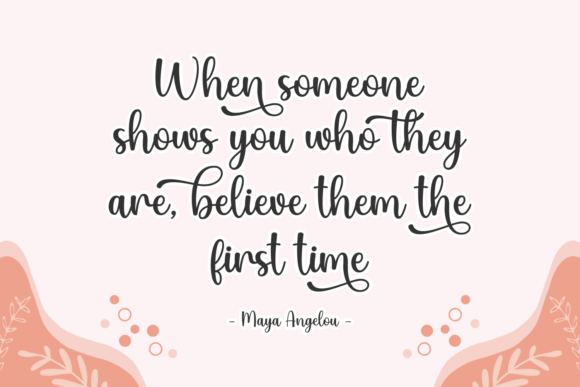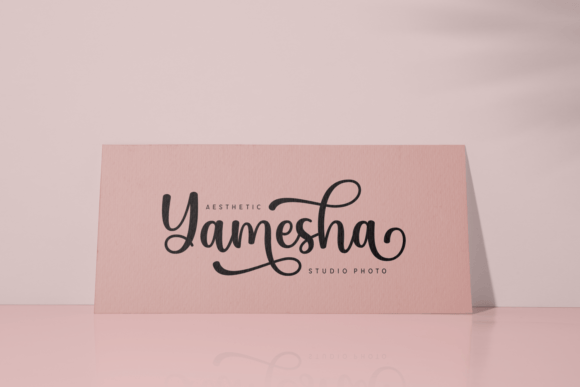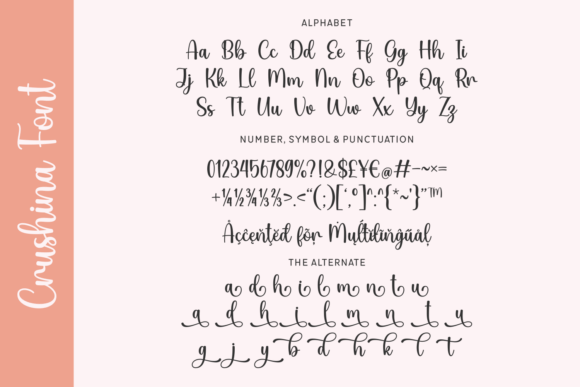
Introduction to Crushina Font
As a designer, there’s nothing quite like the thrill of bringing a creative project to life. The moment when all the pieces come together, and your vision starts to take shape – it’s pure magic. But, we’ve all been there – staring at a blank canvas, trying to decide on the perfect font to elevate our design. That’s where the Crushina Font comes in – a stunning script font that’s sure to add a touch of elegance to any creation.
With its smooth curves and unique swashes, Crushina Font is the perfect design resource for any project that requires a high level of sophistication. Whether you’re working on a branding campaign, creating invitations, or designing a feminine project, this font is sure to impress. And the best part? It’s available for free download, making it an accessible and valuable resource for designers of all levels.
So, what makes Crushina Font so special? For starters, its transparent background allows for seamless integration with any design element, while its high-quality design ensures that it will look stunning on any background or surface. With Crushina Font, the possibilities are endless – and we can’t wait to see what you create with it!
Key Features of Crushina Font
- High-quality, professional font suitable for creative projects and designs.
- Unique characteristics: bold, modern, and playful design elements that add a touch of creativity to any project.
Honest Review: Crushina Font
I recently had the chance to work with the Crushina Font, and I must say it’s been a delightful addition to my design resources. As a designer, I’m always on the lookout for high-quality fonts that can elevate my creative projects, and Crushina Font definitely delivers.
- ✨ Transparent background: The font’s transparent background makes it super easy to use in various design scenarios, from logos to graphics.
- ✨ Versatile style: The Crushina Font’s unique style makes it perfect for a wide range of creative projects, from modern to vintage designs.
However, I did encounter a few limitations during my usage:
- ⚠️ Limited character set: The font’s character set is limited, which may cause issues when working with specific languages or characters.
- ⚠️ Not ideal for body text: While the font is perfect for headings and titles, it’s not the most readable font for body text.
Overall, I’m impressed with the Crushina Font’s potential, but it’s essential to be aware of its limitations. With some creative workarounds, it can still be a valuable addition to your design resources. I’d definitely recommend it for specific design projects, but be cautious of its limitations.
Tips for Getting the Most Out of Crushina Font
Common Use Cases for Crushina Font
Crushina Font is a versatile font that can be used for a wide range of creative projects. Some common use cases include:
- Presentation design
- Document design
- Custom graphics and illustrations